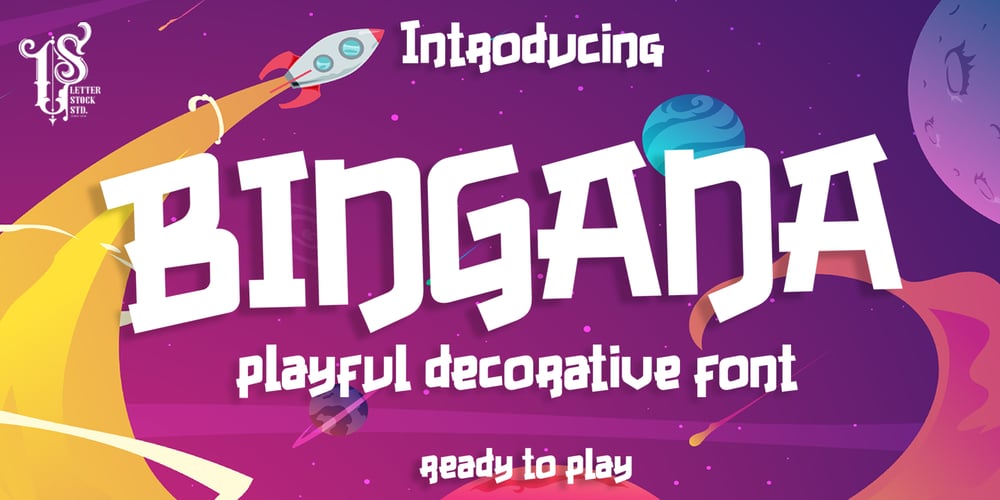
Bingana Font Family was designed by Studio LetterStock and published by LetterStock. Bingana contains 1 styles and family package options. BinganaThis pair was inspired by kids movie poster design that i saw on some gallery, It was crafted by hand specially to add natural handmade feeling in its brand identity than i make it clean with pentool.We improve with handmade to make a playful feel, this font is bold so it can look strong if you use it for branding or even title for your poster design with playful decorative style.Opentype featuresBingana font has 175 character set included Bingana Font is very good looking in playful decorative logotype, labels, t-shirt prints, product packaging, invitations, advertising and others.This fonts works with folowing languages:Afrikaans, Albanian, Asu, Basque, Bemba, Bena, Chiga, Cornish, Danish, English, Estonian, Filipino, Finnish, French, Friulian, Galician, German, Gusii, Indonesian, Irish, Italian, Kabuverdianu, Kalenjin, Kinyarwanda, Low German, Luo, Luxembourgish, Luyia, Machame, Makhuwa-Meetto, Makonde, Malagasy, Malay, Manx, Morisyen, North Ndebele, Norwegian Bokmål, Norwegian Nynorsk, Nyankole, Oromo, Portuguese, Romansh, Rombo, Rundi, Rwa, Samburu, Sango, Sangu, Scottish Gaelic, Sena, Shambala, Shona, Soga, Somali, Spanish, Swahili, Swedish, Swiss German, Taita, Teso, Vunjo, ZuluThank you for using this font.LS